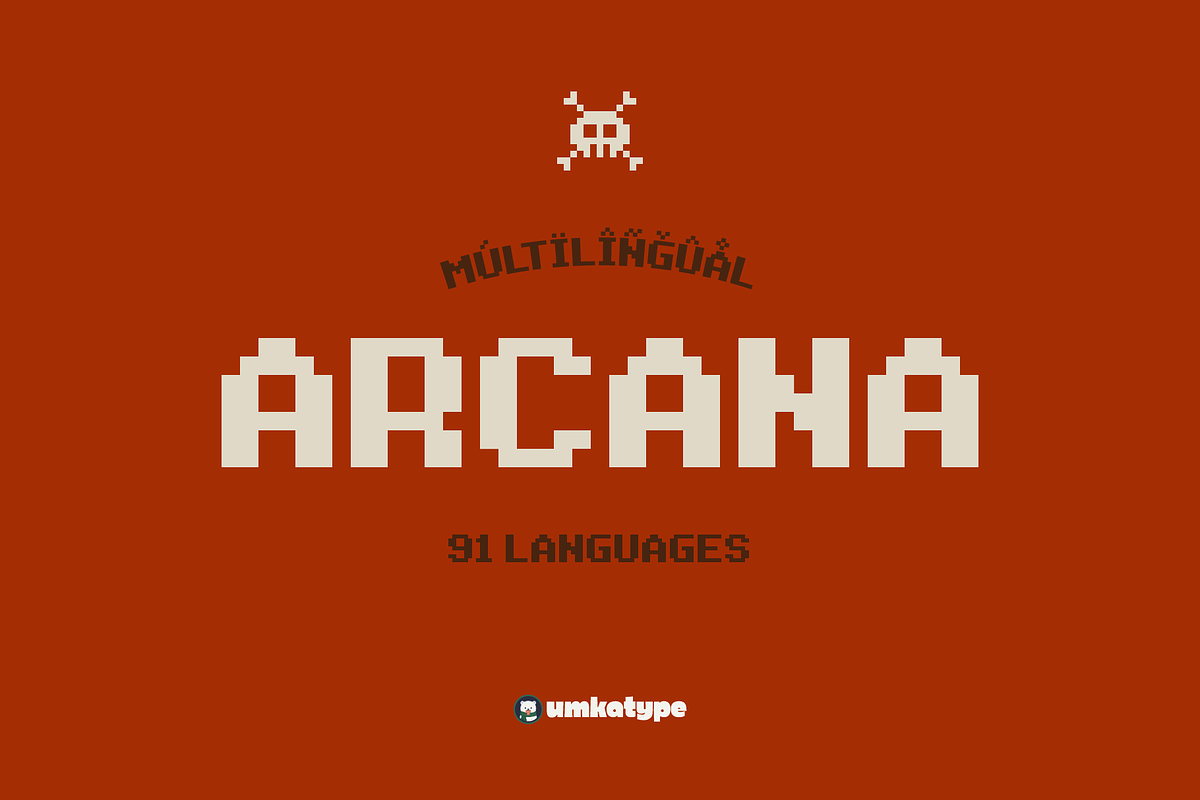
You must purchase this font for commercial use. However, you can download Arcana Game Pixel Font Free Download for testing purposes. Arcana Game is a bold pixel font inspired by retro video games and arcade aesthetics. Perfect for projects related to gaming, app development, game logos, retro posters, and any design that needs a nostalgic, pixelated touch.
With its pixel-perfect design, Arcana Game brings the classic 8-bit and retro gaming vibes into your typography, making it ideal for projects that need a pixelated, digital feel. Whether you're creating a logo for a gaming app, designing a retro-themed event flyer, or developing game-related graphics, this font adds a unique, vintage touch to your designs.